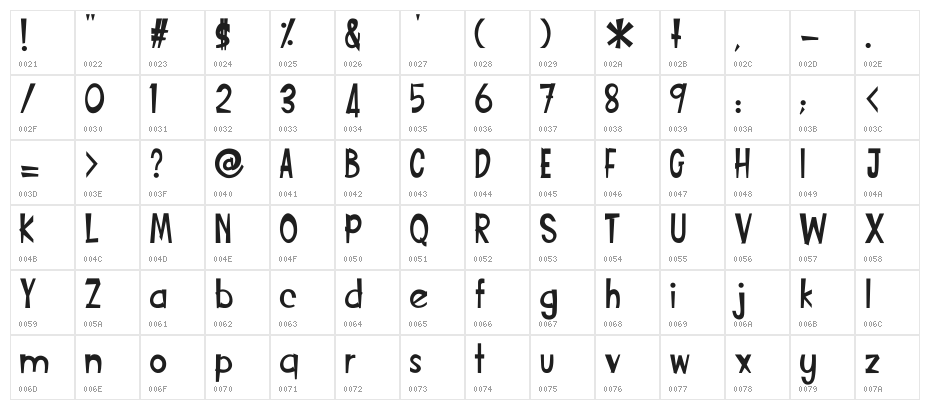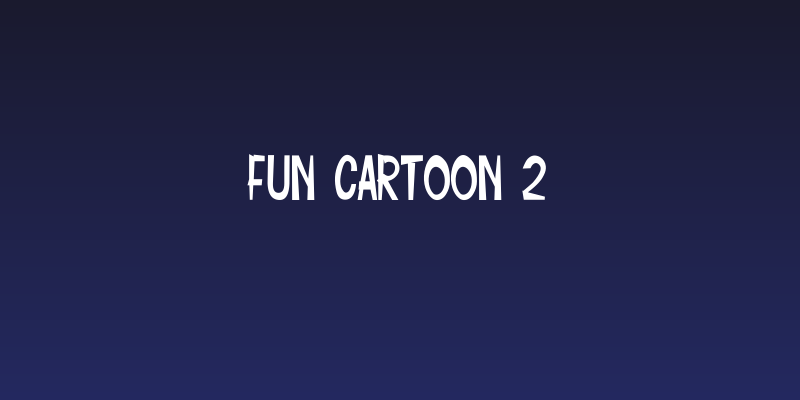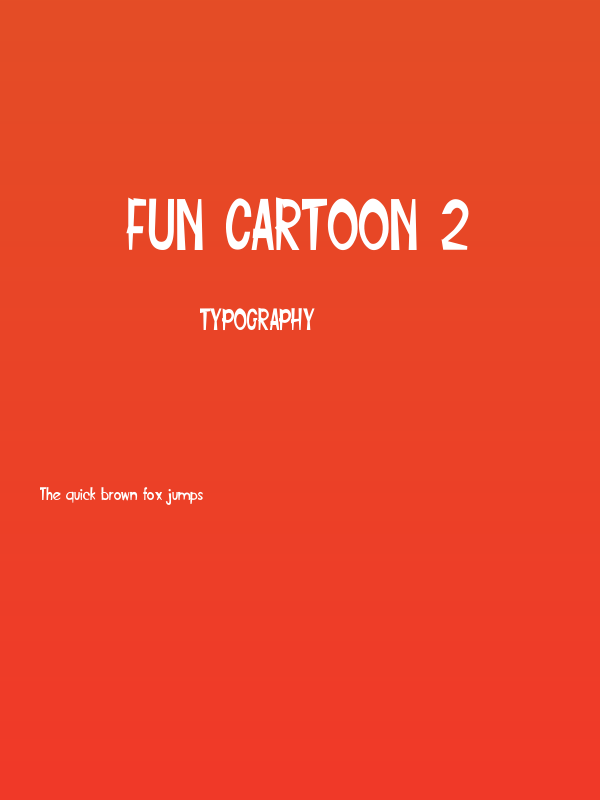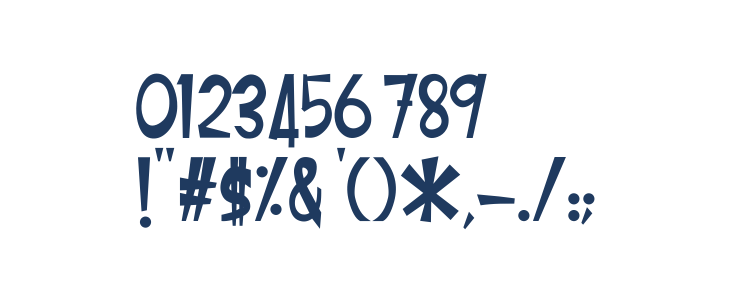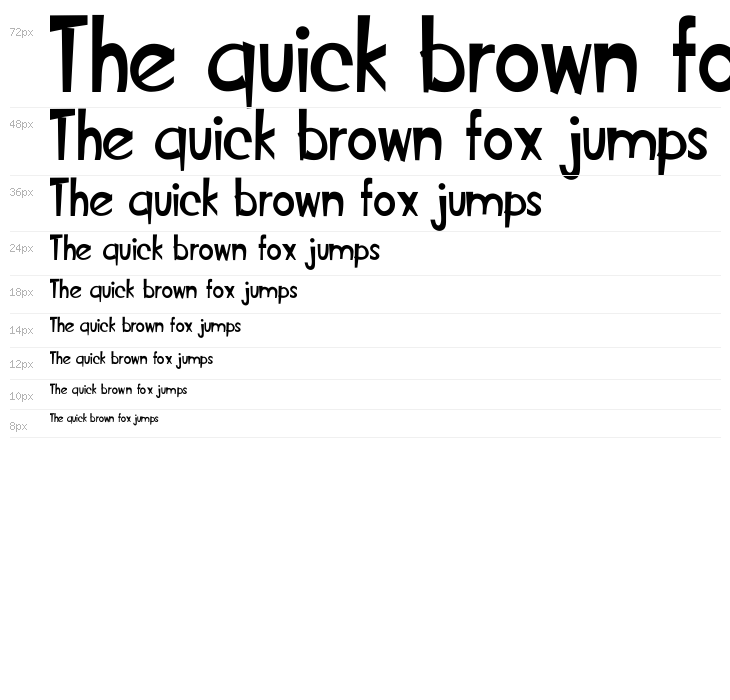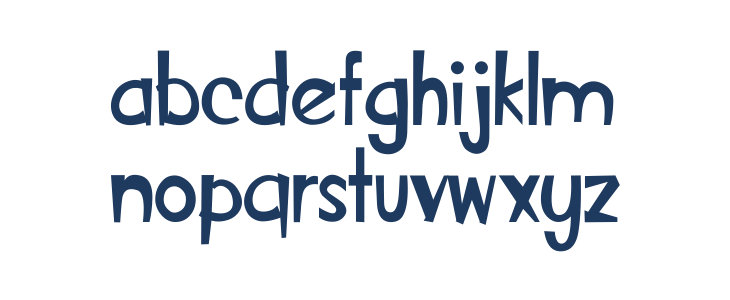
Fun Cartoon 2 Font
Fun Cartoon 2 Description
This playful and whimsical font features exaggerated and uneven strokes, giving it a lively and animated appearance. The uppercase letters are bold and dynamic, with varying heights and widths that create a sense of movement. The lowercase letters maintain the same playful style, with rounded edges and a slightly irregular baseline. Numbers and special characters follow the same energetic design, making them stand out with their quirky shapes. This font is perfect for projects that require a fun and informal touch, such as children's books, cartoons, or playful branding materials.